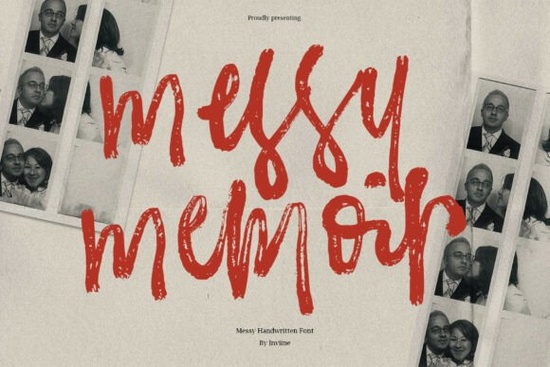
If you're looking for a handwritten font that feels like a real person wrote it messy, heartfelt, and full of quiet emotion you’ll want to try the Messy Memoir Font. It’s not polished or overly refined. Instead, it leans into natural imperfections: slightly uneven baselines, varied stroke weights, and letters that seem to pause mid-thought. That’s by design. This font captures the texture of memory itself like flipping through an old journal or reading a note tucked inside a well-worn book.
What makes Messy Memoir Font different from other script fonts?
Most script fonts aim for elegance or consistency. Messy Memoir Font does the opposite it prioritizes authenticity over uniformity. Each character has subtle variations in pressure, angle, and spacing, mimicking how handwriting changes depending on mood, speed, or even the pen in hand. You’ll notice ink blots, faint lifts between letters, and soft edges that suggest pencil or fine-tip marker not digital perfection. That makes it especially useful when you’re designing something meant to feel personal: a photo book subtitle, a small-batch candle label, or a wedding invitation suite where warmth matters more than symmetry.
Who uses this font and where does it work best?
Designers building editorial layouts often reach for Messy Memoir Font when they need a headline or pull quote to stand out without shouting. Print-on-demand sellers use it for nostalgic t-shirt designs, greeting cards, or wall art that evokes childhood summers or handwritten love letters. Small business owners especially those in wellness, photography, or handmade goods find it fits naturally into branding that values sincerity over slickness. Crafters pair it with watercolor textures or grainy paper scans to reinforce that tactile, analog feeling.
It’s also flexible enough to scale: large sizes keep their expressive energy, while smaller sizes (14–18pt) still retain legibility in body text for short quotes or captions. Just avoid using it for long paragraphs or dense instructions this isn’t a workhorse font, and it shouldn’t be.
How does it compare to other expressive script fonts?
If you already own Wonderful Vintages Font, you’ll notice Messy Memoir Font trades vintage charm for modern vulnerability. Nuances Affection Font is softer and more delicate; Messy Memoir leans bolder and more urgent. Compared to Alverina Font, it’s less structured and more improvisational. And unlike Mallestian Script Font, which balances playfulness with control, Messy Memoir doesn’t try to hold itself together it lets go.
For fans of raw, documentary-style typography, Snapshot Font shares some of its candid energy, but Messy Memoir Font adds more emotional weight less “casual snapshot,” more “note scribbled at 2 a.m.”
Where to use it (and where to step back)
- Use it for: Album covers, poetry chapbooks, Instagram quote graphics, artisan packaging, memoir chapter headings, and brand voice samples.
- Avoid it for: Legal disclaimers, technical documentation, multilingual typesetting (it doesn’t include extended Latin or non-Latin glyphs), or any context where clarity must override character.
It includes standard OpenType features like ligatures and alternate characters so if you’re working in Illustrator or Affinity Designer, you can toggle between versions of “a”, “g”, or “s” to add variety within a single line. No extra plugins needed.
Like many expressive fonts, it pairs well with simple sans-serifs (think Inter, Manrope, or even system fonts like Segoe UI) for contrast. Avoid pairing it with other busy scripts that tends to compete rather than complement.